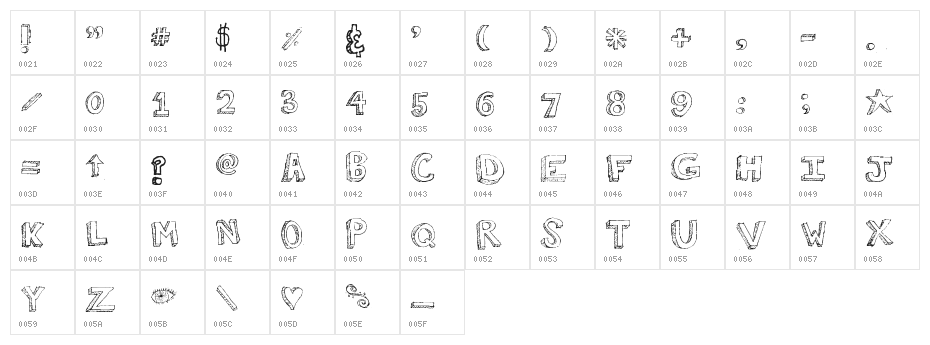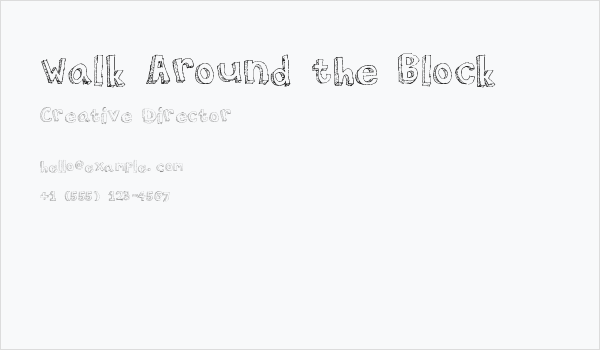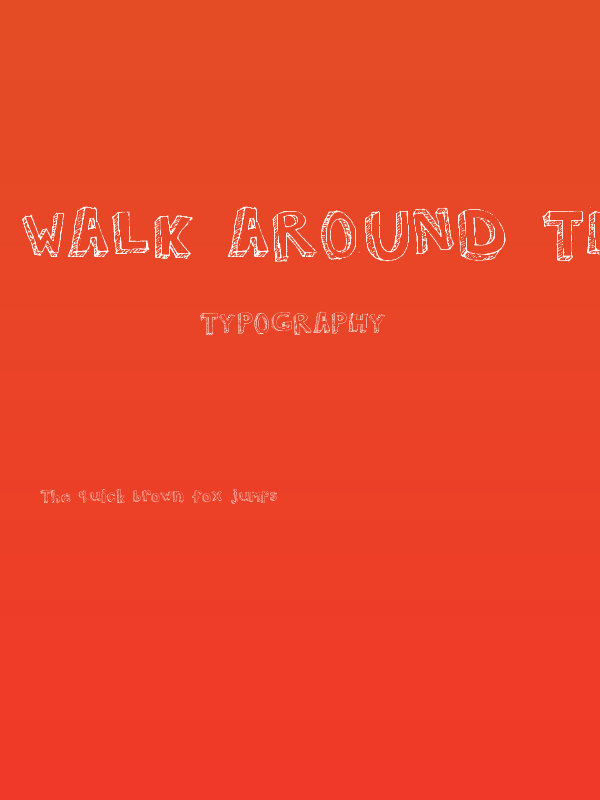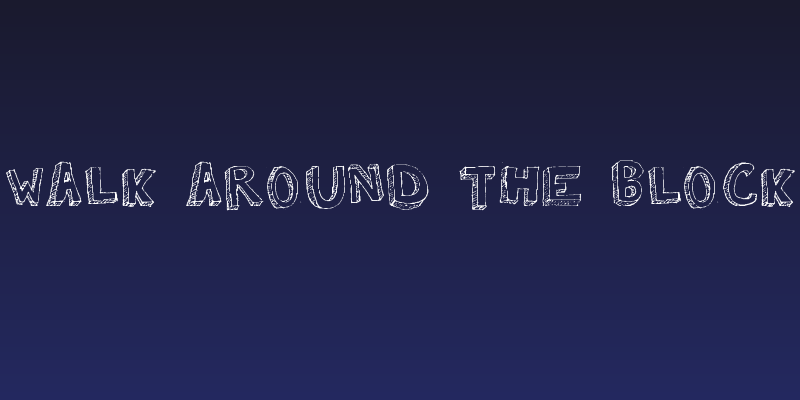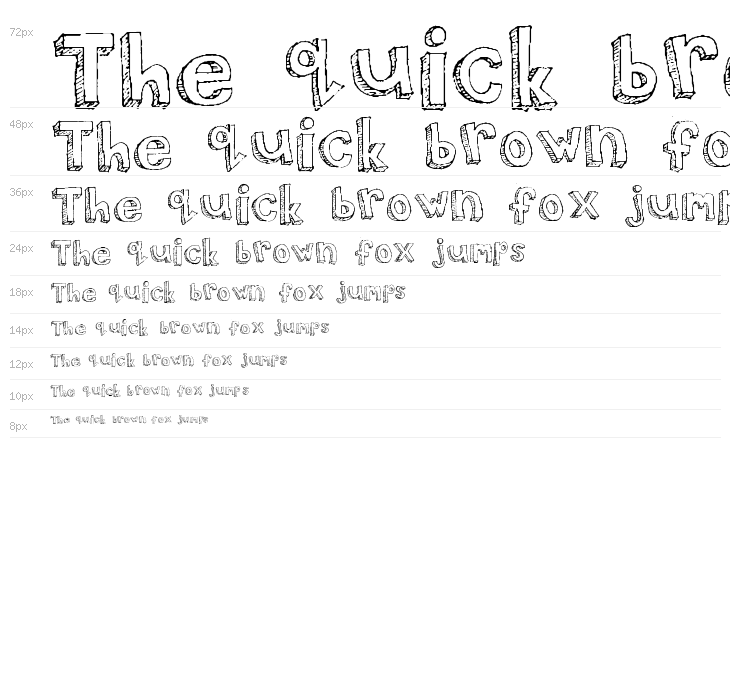
Walk Around the Block Font
| Stile generale | Whimsical and Artistic |
| Progetti proposti | Ideal for children's books, creative posters, casual branding, and artistic invitations. |